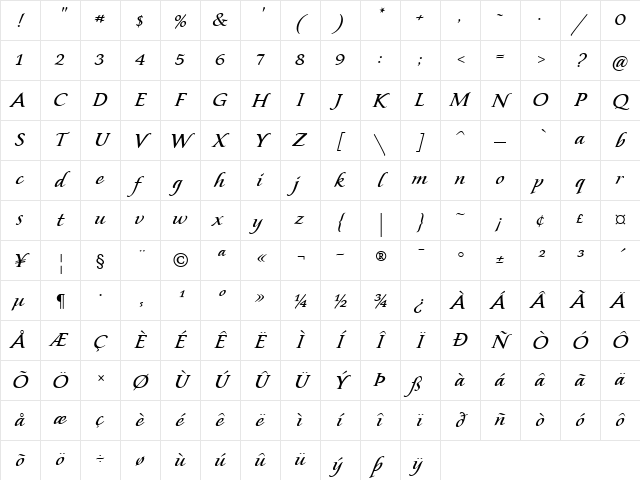
FlorensLP RomanItalic
Style: RomanItalic
Design Context for FlorensLP
FlorensLP is a composed and adaptable typeface that performs quietly and consistently across a wide range of design contexts. The slanted form adds forward momentum and visual energy.
Pro Tip: Use FlorensLP for emphasis, pull quotes, and subheadings where its slanted energy can add rhythm to the layout.